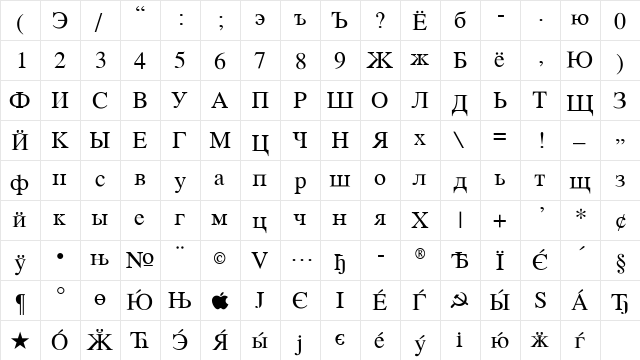
VremyaFLF-Roman Regular
Design Context for VremyaFLF-Roman Typeface
VremyaFLF-Roman offers clean, dependable letterforms without strong stylistic allegiance, making it a practical choice for designers who need flexibility.